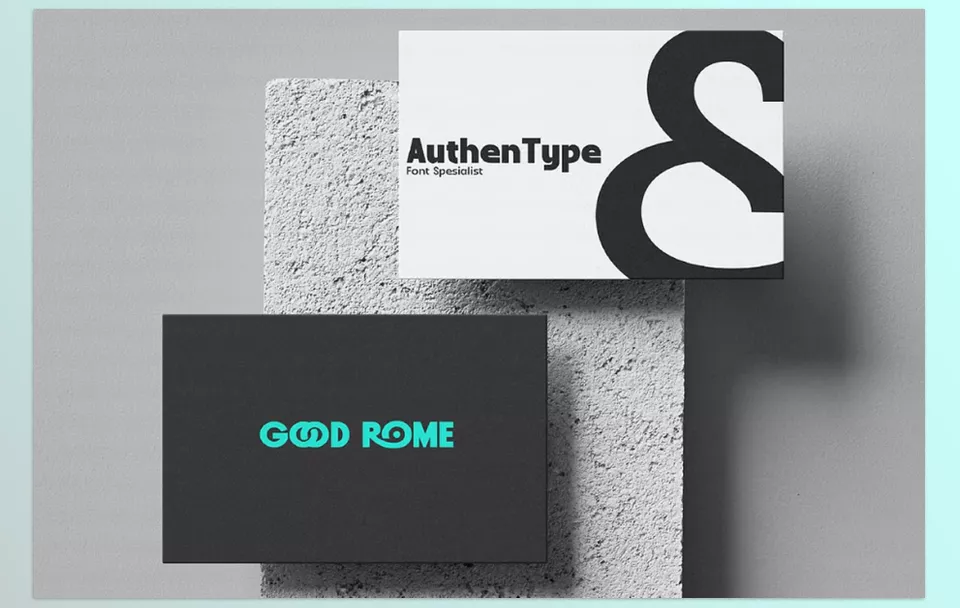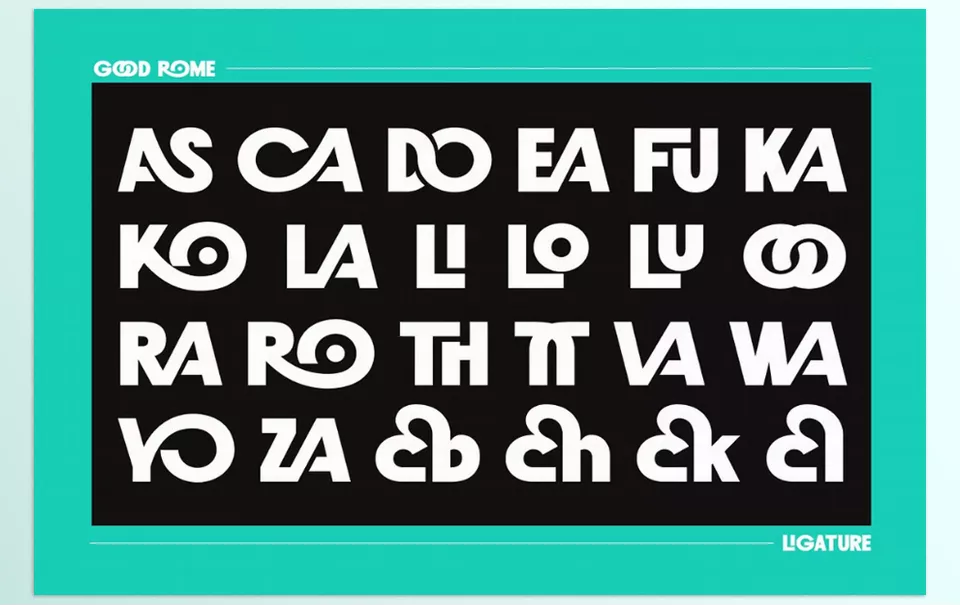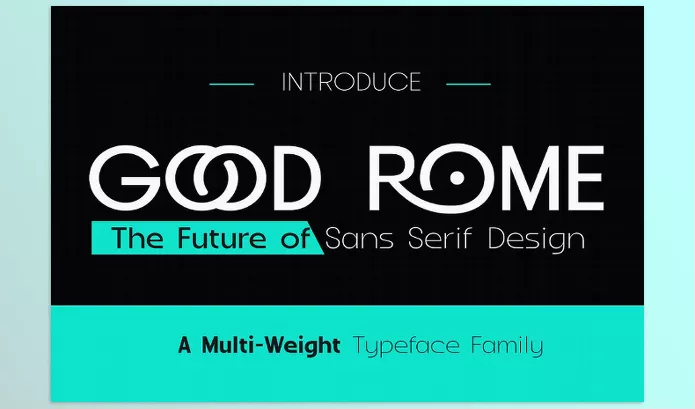
Good Rome The Future of Sans Serif is a futuristic modern typeface with good readability. It is sleek and elegant, ideal for branding, editorial, and UI/UX designs.
AuthenType – Good Rome The Future of Sans Serif Features
• Modern Aesthetic: The design is sleek and sophisticated for a more modern touch.
• Versatile Use: Effective for editorial branding and UI/UX design, among other things.
• Timeless Readability: Incorporates strikingly stunning legibility with beautifully distinct clear lines.
• Multiple Weights: Achieve different stylish forms and save time whilst designing.
Image 1: It blends versatility with precision
Good Rome The Future of Sans Serif - It blends versatility with precision
Image 2: Clean and elegant typography
Good Rome The Future of Sans Serif - Clean and elegant typography